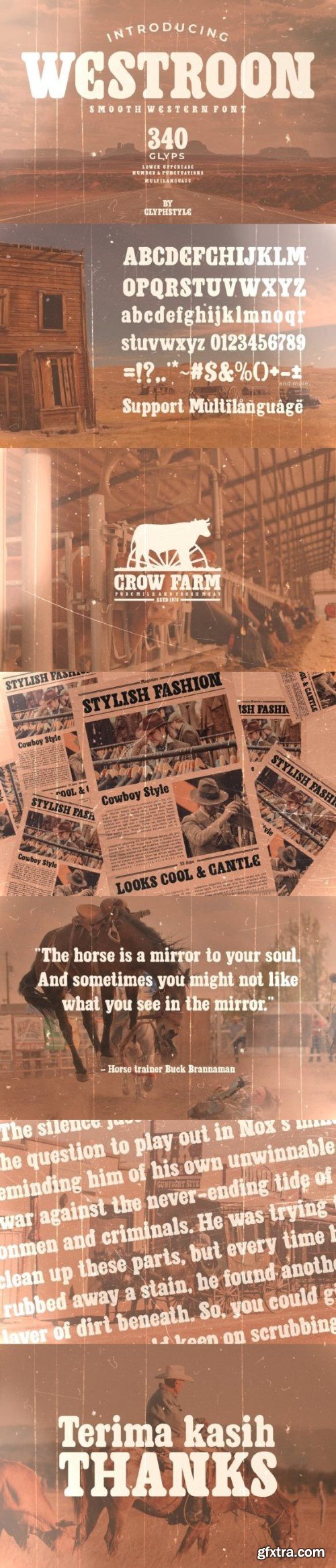
西部隆字体
Westroon is a daring, Western-style serif font that reflects the adventurous spirit of the frontier. Its solid lines and unique serifs conjure up pictures of cowboy heroes and vast landscapes. Ideal for vintage signage, apparel designs, and bold branding projects, Westroon expresses the soul of the Wild West with classic charm.